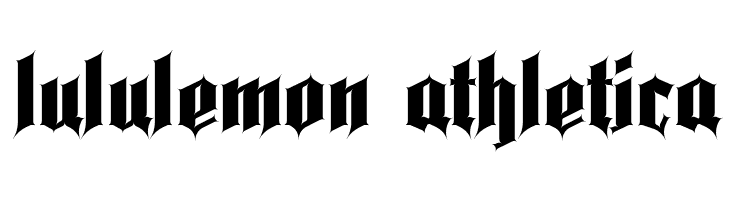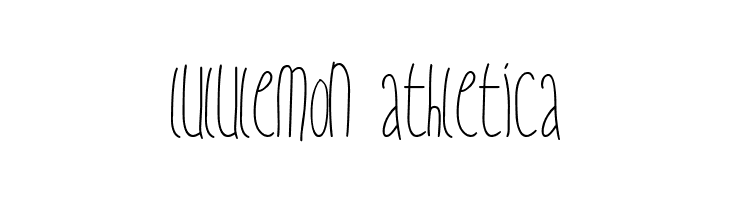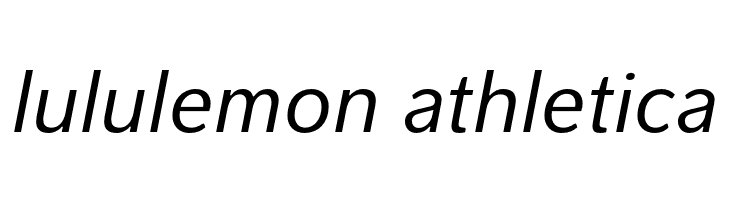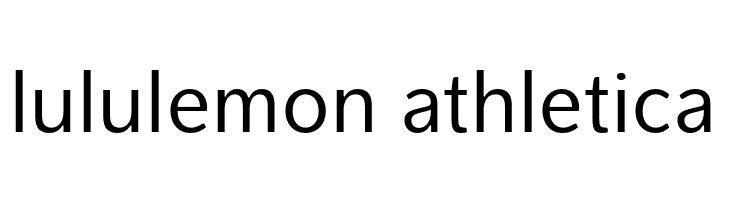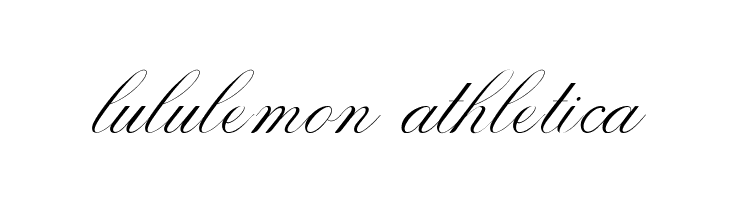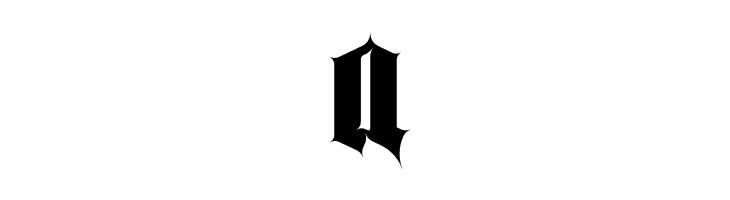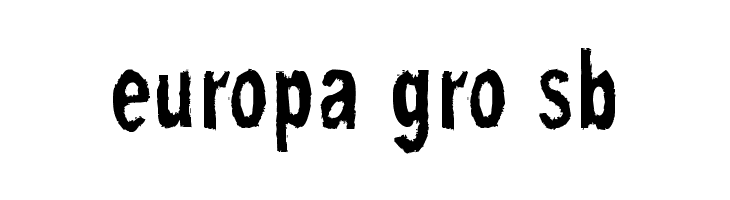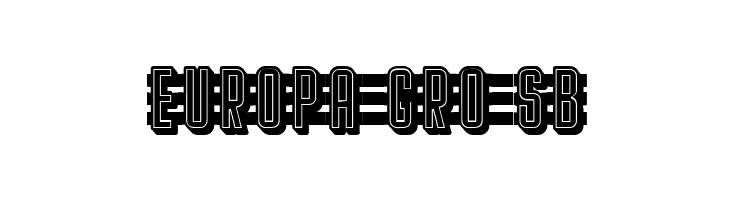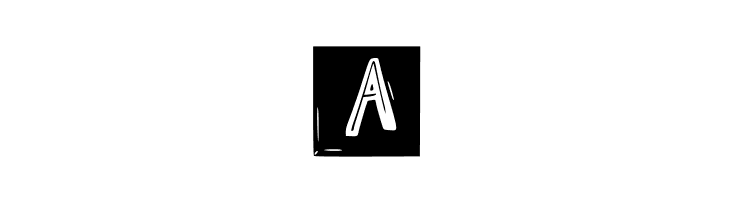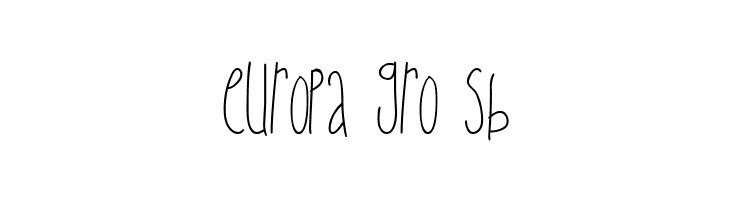
A modern, extra-light sans-serif font with a clean and minimalistic design.
A bold, modern sans-serif font with clean lines and balanced proportions.
A bold, italic font with strong, consistent strokes and excellent readability.
A sleek, modern italic font with clean lines and smooth curves.
A clean and modern sans-serif typeface with consistent stroke thickness.
A bold, modern sans-serif font with clean lines and strong readability.
A bold and italicized font with a dynamic and elegant style.
A modern, italic sans-serif font with clean lines and balanced proportions.
A clean, modern sans-serif font with excellent readability.
A rugged, textured font with a vintage, typewriter-like appearance.
A bold, geometric font with a pixelated, digital aesthetic.
A bold, textured font with a hand-drawn, vintage look.
A whimsical, handwritten font with tall, narrow characters and a light, airy appearance.
A tall, slender, and whimsical hand-drawn font with consistent strokes.
A dynamic, handwritten font with fluid strokes and an informal style.
A diverse set of pen and writing instrument icons in silhouette style.
A bold, intricate Blackletter font with sharp, angular lines and dramatic flourishes.
A hand-drawn, edgy font with jagged edges and dynamic strokes.
A bold, sketch-like font with jagged, artistic strokes and a rebellious style.
A playful, hand-drawn font with a boxed, doodle-like appearance.
A playful, hand-drawn font with rounded, friendly characters.
A casual, handwritten font with a playful and informal style.
A bold, handwritten-style font with a playful and informal character.
A playful, handwritten-style font with bold, rounded characters.
A bold, decorative font with a pencil-like fill and thick outlines.
A playful font with letters styled as pencils, ideal for educational themes.
A bold, decorative font with a 3D effect and geometric design.
A playful, handwritten font with tall, narrow letters and a casual style.
A bold, distressed stencil font with an industrial and vintage feel.